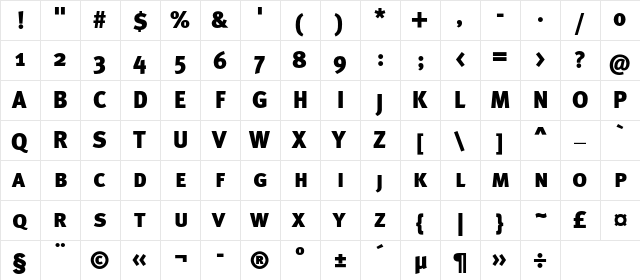
MetaBlackCapsC Regular
Design Context for MetaBlackCapsC Typeface
MetaBlackCapsC is a composed and adaptable typeface that performs quietly and consistently across a wide range of design contexts.